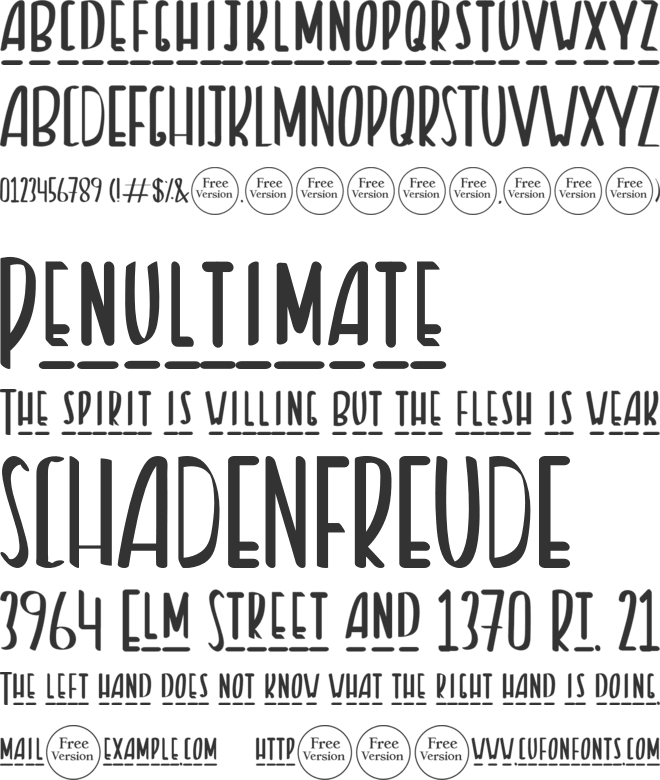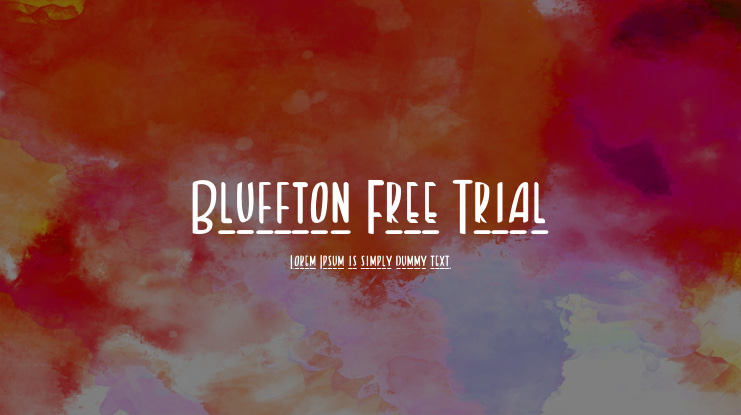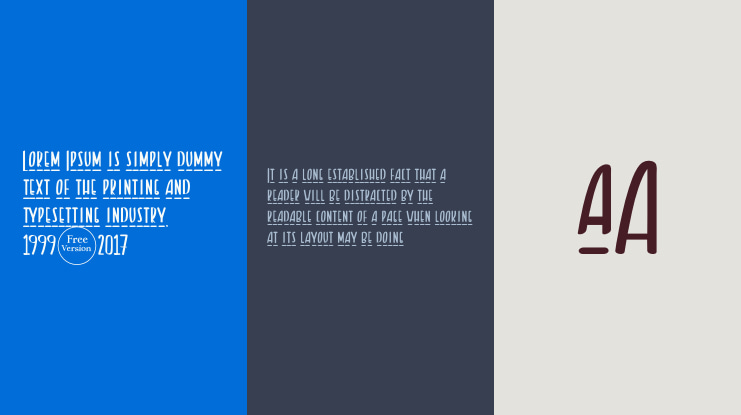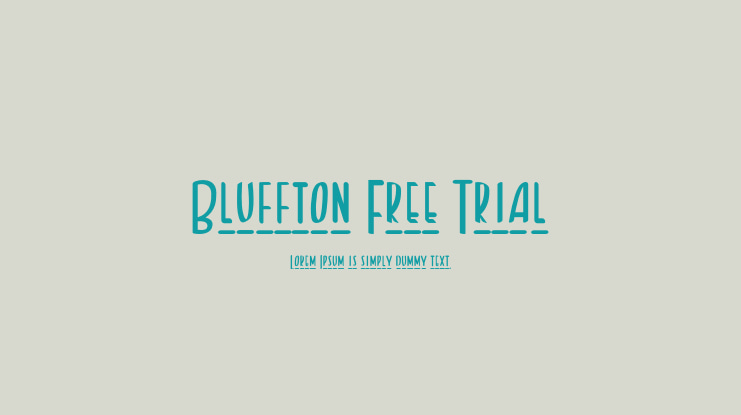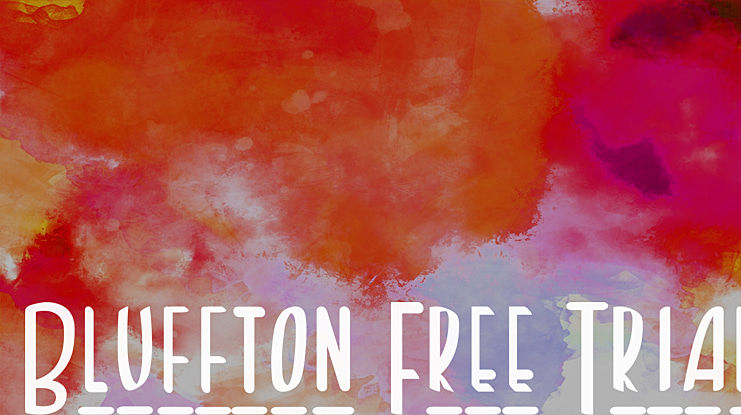
Bluffton Free Trial Font
Bluffton is a decorative hand drawn font.
Its lowercase got underline which make the font more visible and more decorative.
Bluffton font is really great for a birthday card, clothing, thanksgiving gift card, quotes, headings, birthday invitations, posters, brand, food menu, and many others.